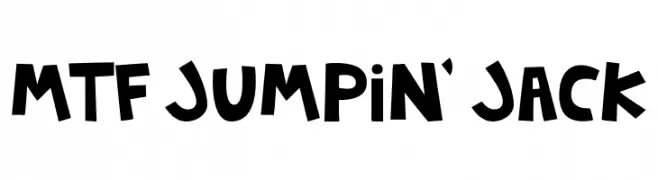
( Fonts by Iconian Fonts )
A bold, 3D italic font with a futuristic and dynamic style.
( Fonts by Iconian Fonts )
A bold, angular font with a futuristic and aggressive style.
( Fonts by Iconian Fonts )
A bold, futuristic font with a 3D effect and italicized slant.
( Fonts by Iconian Fonts )
A bold, condensed, and italicized font with a dynamic and angular design.
( Fonts by Iconian Fonts )
A bold, angular, and futuristic font with a geometric design.
( Fonts by Iconian Fonts )
A bold, italic, and angular font with a modern, geometric style.
( Fonts by Iconian Fonts )
A bold, angular, and italic font with a futuristic style.
( Fonts by Iconian Fonts )
A bold, angular font with a dynamic, geometric style.
( Fonts by Iconian Fonts )
A bold, geometric font with a halftone pattern and angular design.
( Fonts by Iconian Fonts )
A bold, angular, semi-italic font with a dynamic and modern style.
( Fonts by Iconian Fonts )
A bold, geometric font with a futuristic and industrial style.
( Fonts by Iconian Fonts )
A bold, italicized font with a gradient effect and angular design.
( Fonts by Iconian Fonts )
A bold, italicized font with a halftone effect, exuding a futuristic and dynamic style.
( Fonts by PremiereGraphics )
A distressed, brush-style script font with a rugged, artistic appearance.
( Darrell Flood )
A bold, italic font with rounded edges and a playful, dynamic style.
( Darrell Flood )
A playful, bold font with rounded, bubbly characters.
( Runsell Studio - creativemarket.com/RunsellStudio )
A playful and whimsical font with elongated, slightly curved letterforms.
A bold, italic font with a dynamic, geometric design.
A bold, blocky font with thick strokes and minimal spacing, perfect for impactful designs.
A bold, inverse-style font with geometric, rounded characters.
A bold, geometric font with a strong, impactful design.
A bold, italic font with thick, rounded strokes and tight spacing, perfect for dynamic designs.
A bold, playful handwritten font with dynamic, rounded strokes.
A bold, playful font with wavy, rounded characters and a whimsical style.
A playful, hollow, and dynamic font with a whimsical, outlined style.
A bold, italicized font with a dynamic and playful style.
A playful, dynamic font with hollow, flowing letterforms.
A bold, playful font with dynamic, irregular letterforms.
A bold, italicized font with a dynamic and energetic style.
A bold, playful font with dynamic, animated character shapes.
A bold, playful font with a dynamic and energetic style.
( HENRIavecunK )
A tall, thin, and modern sans-serif font with a sleek, elegant appearance.
( Fonts by Docallisme HAS )
A playful, rounded font with a dotted outline, perfect for creative projects.
( Fonts by Runsell Studio )
A playful, whimsical font with tall, narrow letters and consistent stroke thickness.